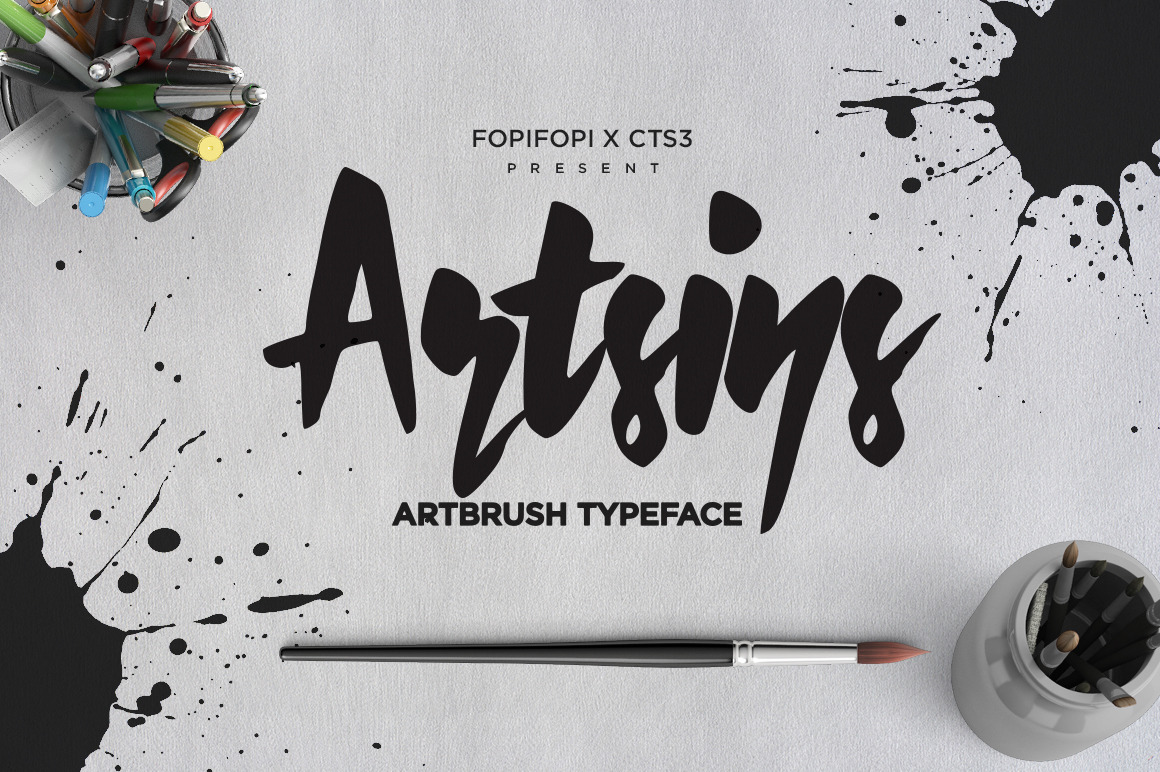
Heeeeey, artsy people! We’re so excited about this collaboration with CTS3. We named it Artsins as in: “artbrush that tastes like sins”
ARTSINS Typeface is an artistic typeface, inspired by the handwritten of some artist. You can use Artsins Typeface in any settings; books, tee design, titling on movie, poster, cd cover for kid's song album, sign for the kid's area, etc.
The space is your limit...! If you fancy artsy-craftsy elements in your design, this is your type of font. Don’t miss it.